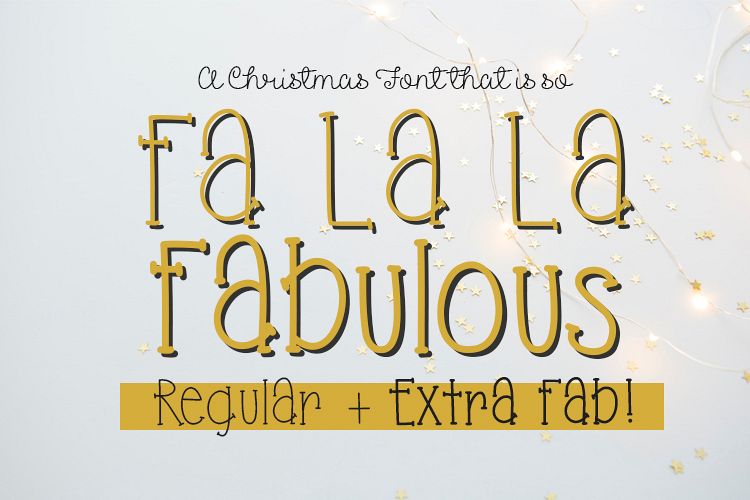
Perfect for monograms, Christmas cards, flyers, invitations to that Ugly Christmas Sweater Party, or anything else you want to add some festive flair to!
Layer to add fun depth